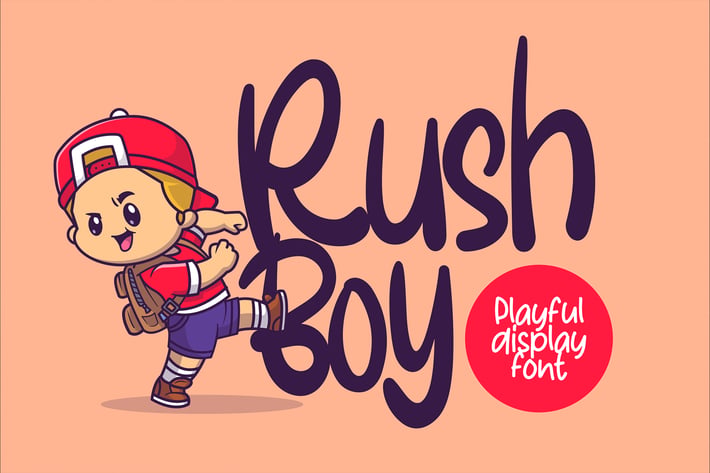
Rush Boy - Playful Display Font
Say hello to Rush Boy font. Made with love and joy. Handwritten look, so it will make your design more beautiful, cute, fun, and colorful.